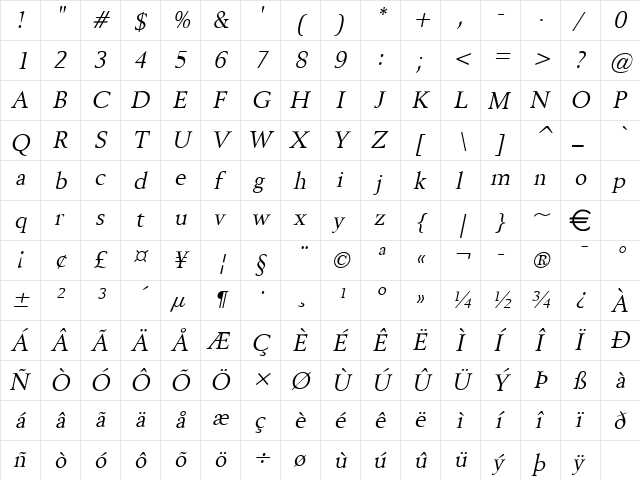
Revive8 Italic
Design Context for Revive8 Typeface
Revive8 is a composed and adaptable typeface that performs quietly and consistently across a wide range of design contexts. The slanted form adds forward momentum and visual energy.
Pro Tip: Try Revive8 for annotation and caption copy alongside an upright companion — the contrast in angle creates a dynamic but ordered typographic system.